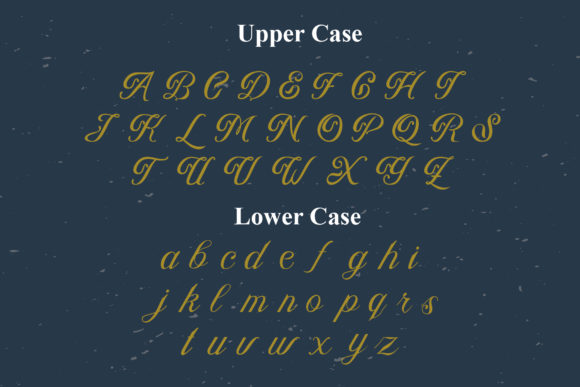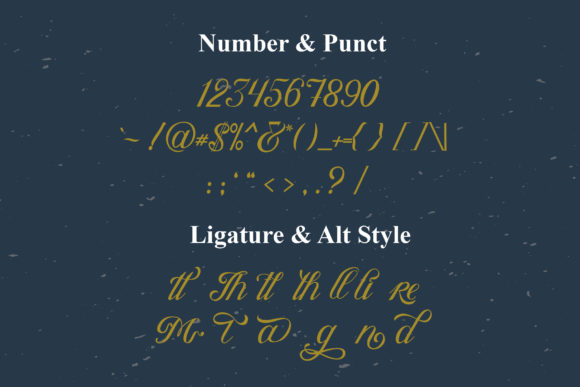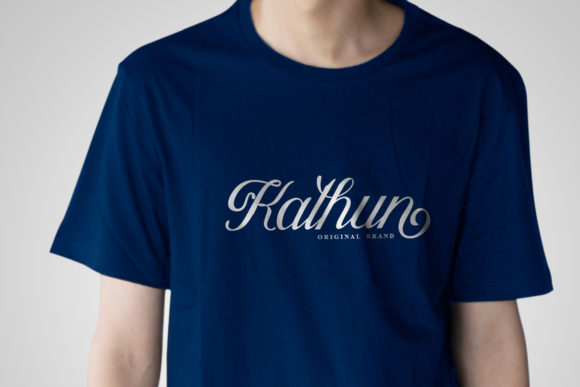
Introduction to Kathun Font
Have you ever been stuck on a design project, struggling to find the perfect font to bring your vision to life? I know I have. There’s something magical about that moment when you finally stumble upon the perfect design resource, and everything clicks into place. That’s exactly what happened when I discovered the Kathun Font.
With its classic typography and unique style, Kathun Font is a game-changer for designers. Whether you’re working on a branding project, creating wedding designs, or crafting invitations, this font will elevate your work to new heights. Its versatility and high quality make it an ideal choice for a wide range of creative projects, from logos and labels to signatures and more.
Kathun Font
- Unique, modern design ideal for creative projects, offering a high-quality design resource.
- Features a transparent background, allowing for easy layering and customization in design applications.
- High-resolution design, suitable for use in print and digital applications at resolutions up to 300 DPI.
- Designed to be versatile and adaptable for use in a wide range of creative projects, from logos to typography.
- Comes in multiple font weights and styles, providing designers with a range of options for creative expression.
- Perfect for designers seeking a high-quality, free design resource to elevate their creative project.
Honest Review: Kathun Font
I recently stumbled upon the Kathun Font while searching for a high-quality design resource for a creative project. I was immediately drawn to its unique aesthetic and decided to give it a try.
- What works well: ✨ The Kathun Font has a beautiful, hand-drawn feel that adds a touch of elegance to any design. The font is highly customizable, making it perfect for a wide range of creative projects.
- What works well: ✨ The font includes a transparent background option, which makes it easy to layer and manipulate in design software.
While the Kathun Font is a great addition to any design resource library, there are a few limitations to be aware of. ⚠️ The font may not be suitable for small text sizes, as the letters can become distorted and difficult to read.
Overall, I’m impressed with the Kathun Font and would recommend it to designers looking for a high-quality, unique font for their creative projects.
Kathun Font
The Kathun Font is a high-quality design resource perfect for any creative project. Its unique design and transparent background make it an ideal choice for various applications.
Tips for Getting the Most Out of Kathun Font
To get the most out of the Kathun Font, use it in conjunction with other design elements to create a cohesive look.
The Kathun Font is commonly used in:
- Graphic design projects
- Branding and marketing materials
- Wedding and event invitations
Alternatives to Kathun Font
Alegreya Font
Alegreya is a high-quality serif font ideal for creative projects that require elegance and sophistication. It’s perfect for use in book covers, magazine articles, and other design elements where a classic, refined look is desired. Alegreya’s clean lines and transparent background make it an excellent alternative to Kathun Font, particularly for design projects that require a sense of luxury and sophistication.
Lato is a modern sans-serif font that offers a clean and minimalist design. It’s perfect for use in digital design, logos, and branding projects where a simple and modern look is desired. Lato’s high-quality design and transparent background make it a great alternative to Kathun Font, particularly for design projects that require a modern and sleek look.
Playfair Display is a luxurious serif font that’s perfect for creative projects that require a sense of elegance and sophistication. It’s ideal for use in invitations, wedding designs, and other design elements where a classic, refined look is desired. Playfair Display’s high-quality design and transparent background make it an excellent alternative to Kathun Font, particularly for design projects that require a sense of luxury and sophistication.